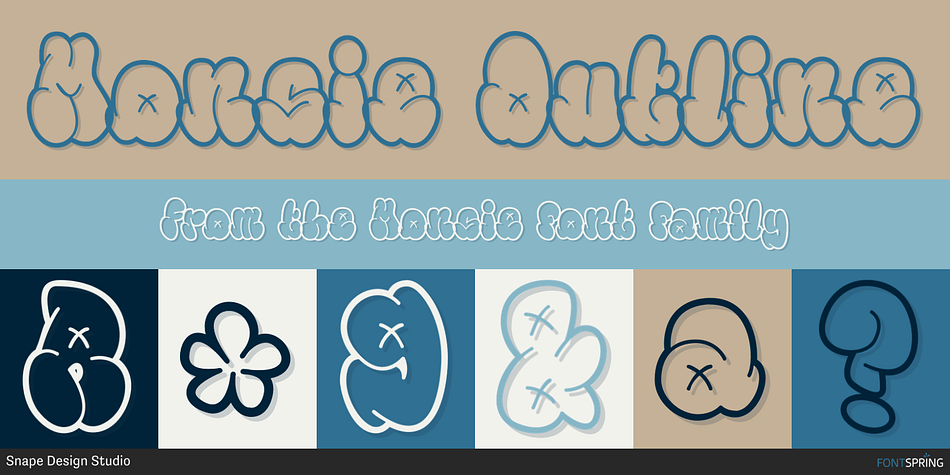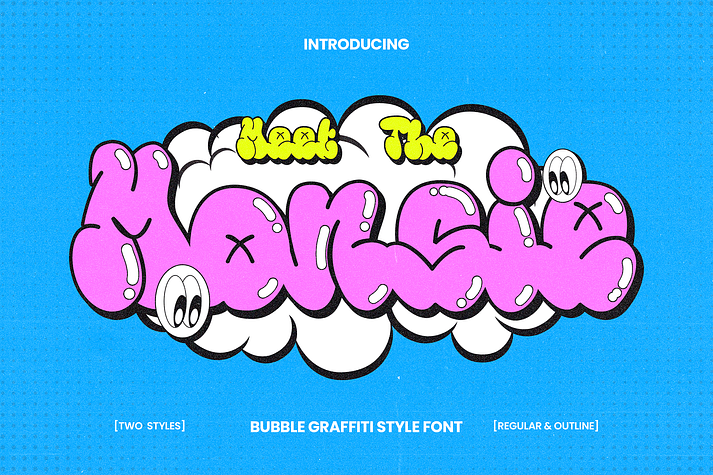
Monsie Outline
Monsie is a font family. This typeface has two styles and was published by Snape Design Studio.
Monsie is a Bubble graffiti style font, bubbly and thick lettered display font. It embodies playfulness and authenticity. Creativity blooms in these bubble graffiti letters! Cheerful colors that blend to perfection create stunning street art design concept. Suitable for movie, documenter, film, logo, poster, game, book cover, headlines, title and many more projects. Add this font to your creative ideas and notice how it will make them stand out!